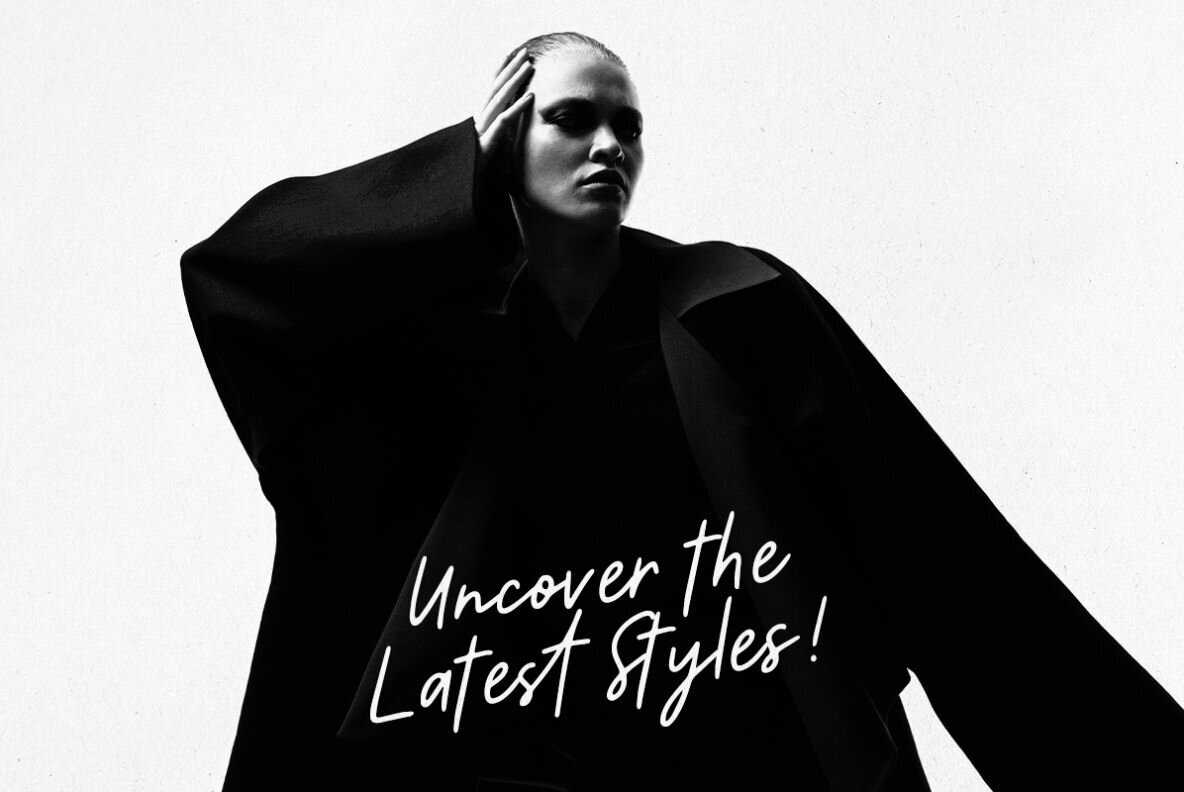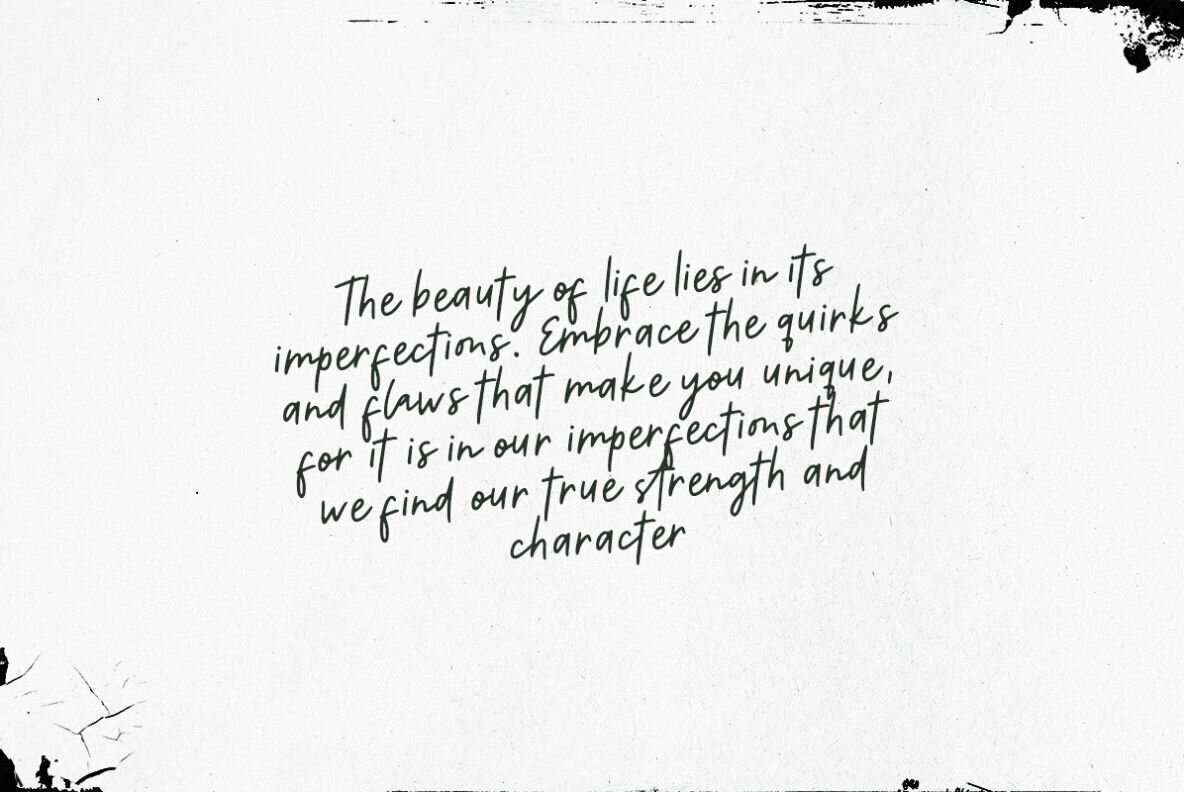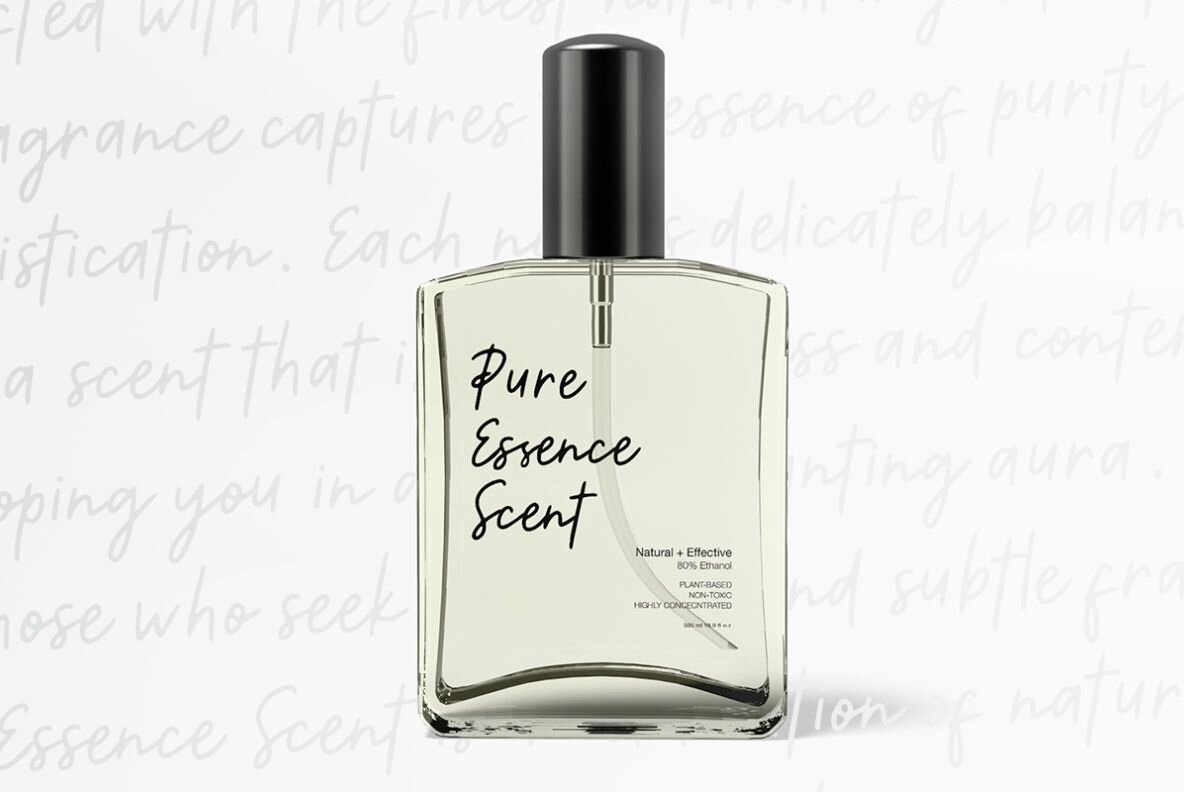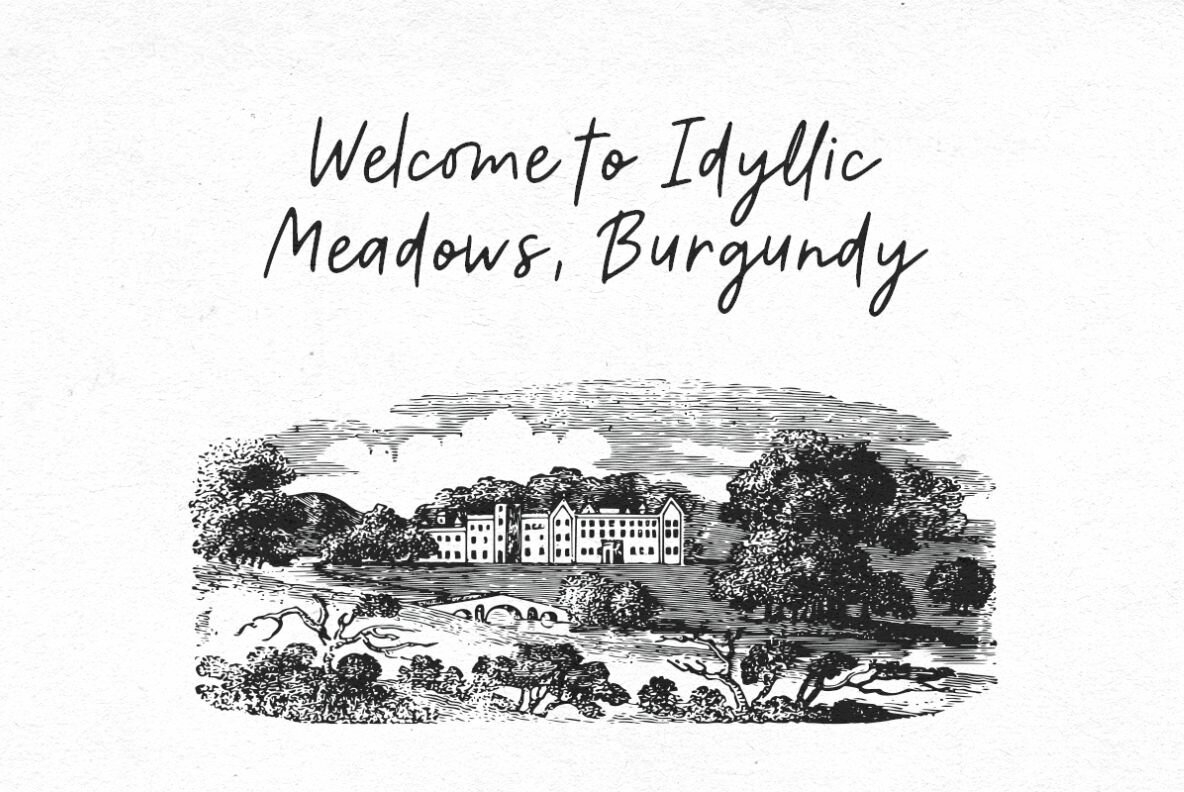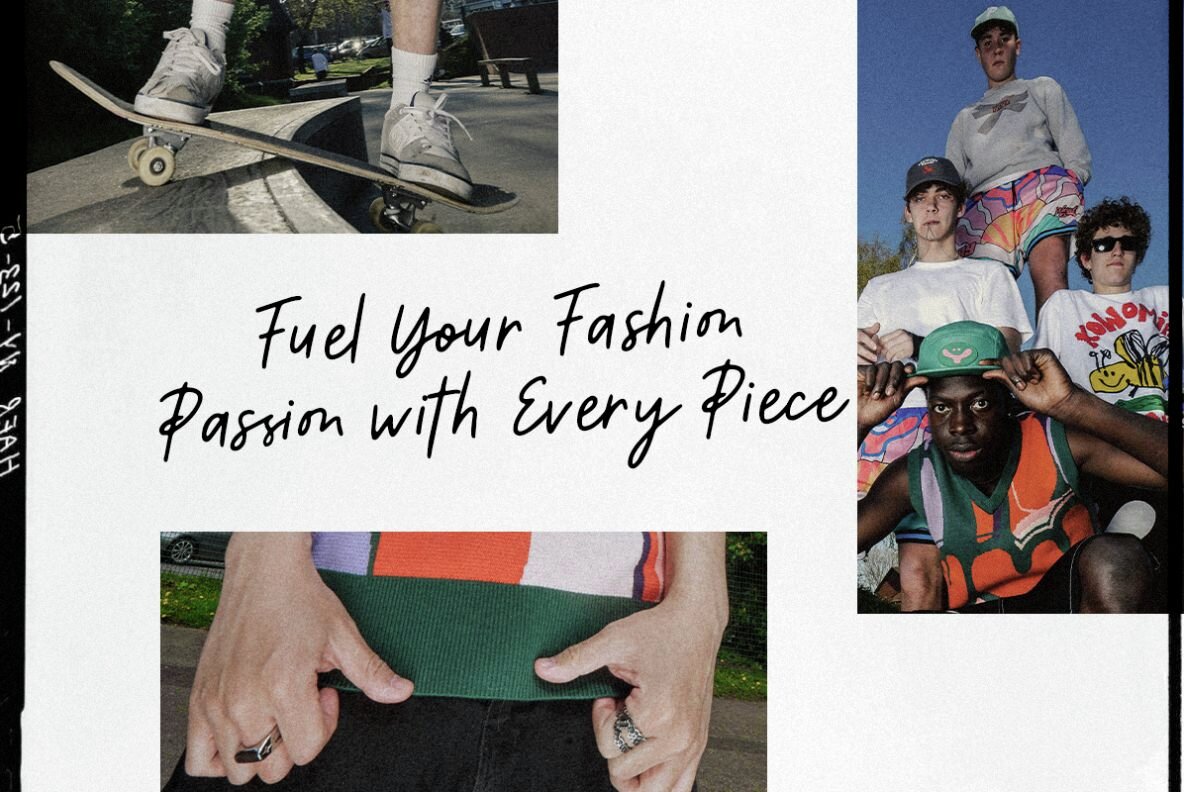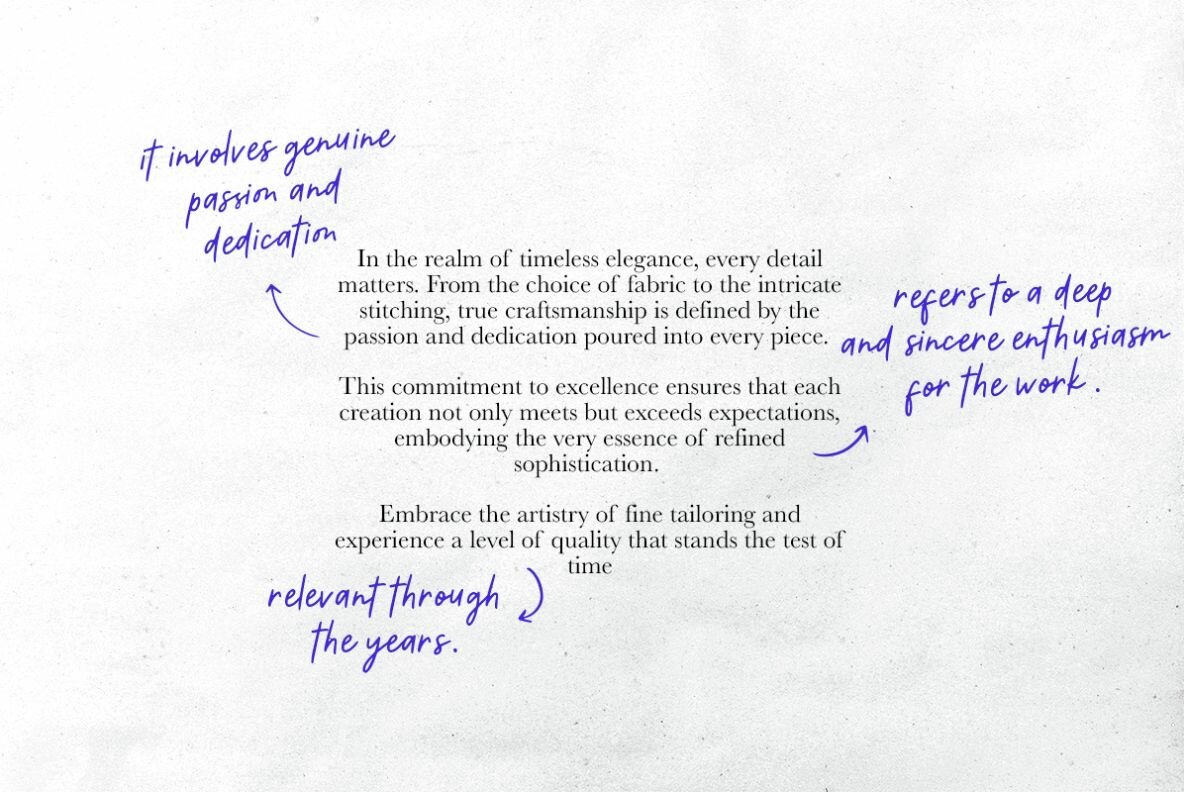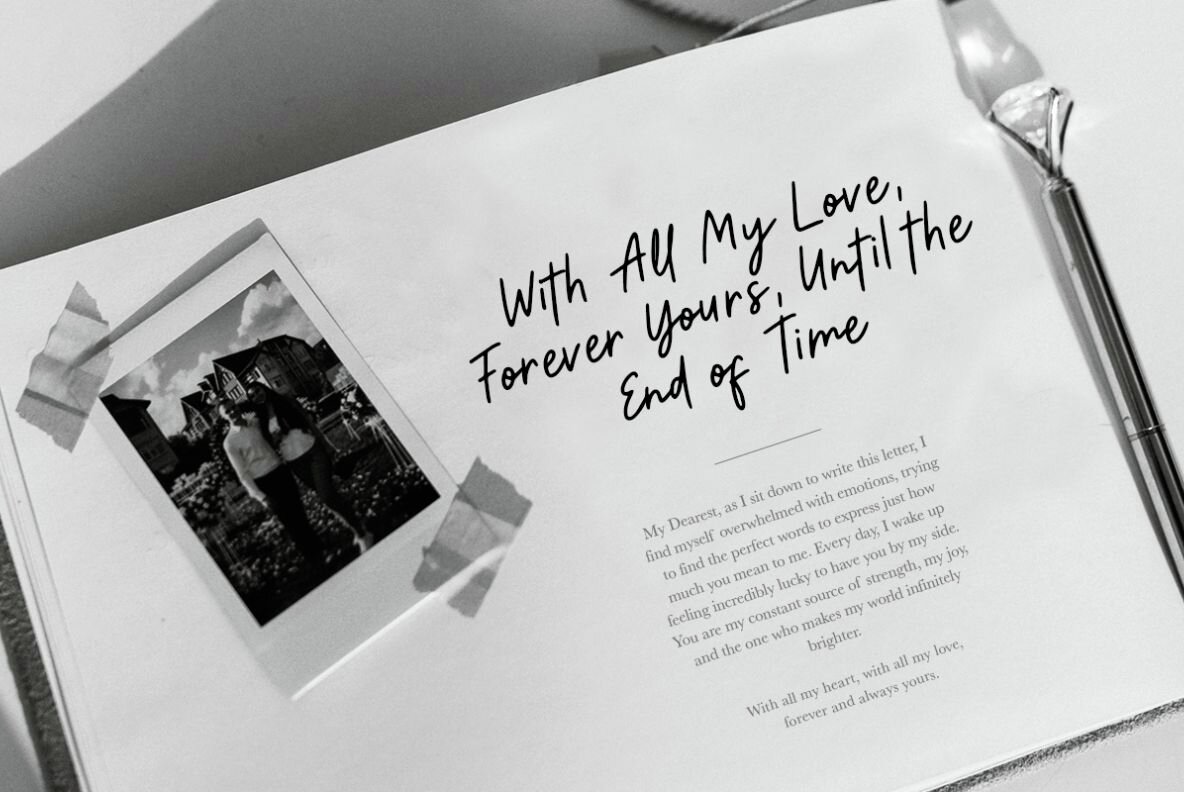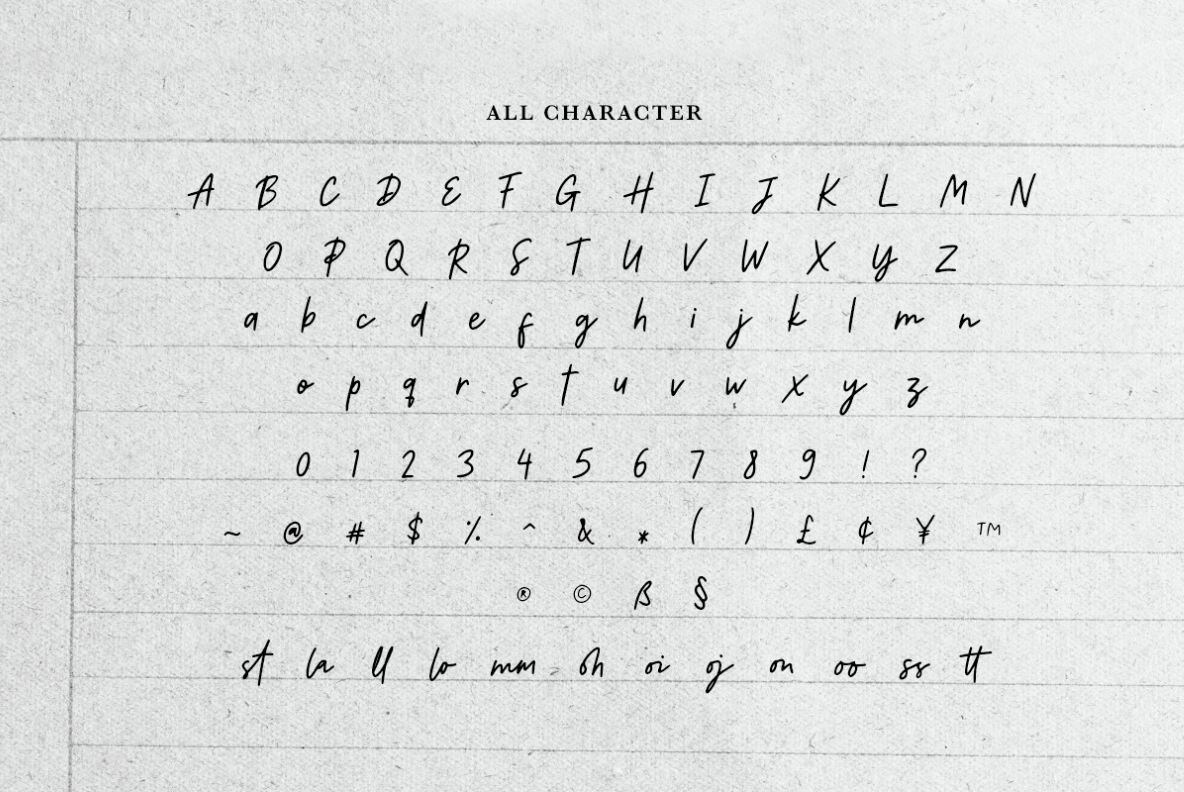
Better Progress Font
Better Progress Regular
Better Progress is a minimalist handwritten script. You can use this font for any purposes, such as branding, quotes, logo, and your complimentary to your another font. With ligatures, you can get your design more naturally handwritten. This font also support multi language.